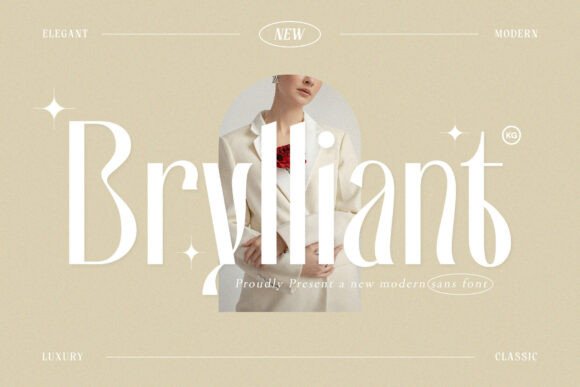
The Elusive Luxury Font: My Journey with Brylliant
I still remember the design project that led me to discover Brylliant. I was working on a high-end fashion brand’s visual identity, and my client was adamant about finding a font that exuded luxury and sophistication. I scoured the internet, tried out countless fonts, but nothing seemed to fit the bill. That was until I stumbled upon Brylliant – a modern sans-serif that instantly caught my attention with its elegant curves and refined aesthetic.
An Honest Review of Brylliant
• ✅ High-contrast strokes that add depth and visual interest
• ✅ Fluid, organic terminals that create a sense of movement
• ✅ Unique “swelled” stems that give the font its distinctive character
• ✅ Sophisticated, boutique-style presence that’s perfect for high-fashion branding
While Brylliant is an exceptional font, it’s not without its limitations. For instance, some users have reported issues with kerning, particularly when using the font at smaller sizes. Additionally, the font’s stylistic alternates can be finicky, requiring some manual tweaking to get the desired look.
To overcome these challenges, I recommend experimenting with different font sizes and styles to find the sweet spot where the font shines. It’s also essential to take advantage of Brylliant’s OpenType features, such as ligatures and stylistic sets, to add visual interest and personality to your design.
A Practical Guide to Using Brylliant
The Story Behind Brylliant
Brylliant was designed with the goal of redefining classic luxury for the modern era. Its creator, a renowned type designer, drew inspiration from traditional serif fonts and infused them with a modern, sans-serif twist. The result is a font that’s both elegant and cutting-edge – perfect for high-fashion branding and avant-garde editorial design.
What makes Brylliant suitable for high-fashion branding? Brylliant’s unique blend of classic elegance and modern sophistication makes it perfect for high-fashion branding. Its high-contrast strokes, fluid terminals, and swelled stems create a luxurious feel that’s hard to match.
Can I use Brylliant for body text? While Brylliant is stunning as a display font, it’s not ideal for body text. Its elegant design and high-contrast strokes are better suited for headlines and titles.
Is Brylliant available in different weights? Yes, Brylliant comes in a range of weights, from light to bold. This makes it versatile for various design applications, from subtle typography to bold statements.